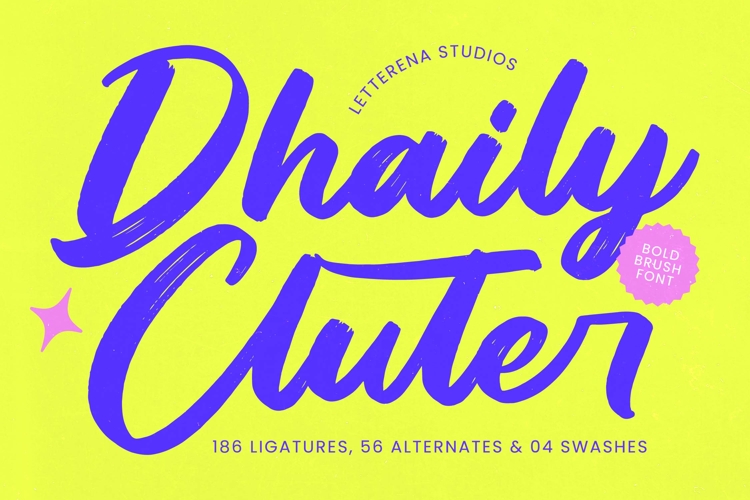
Dhaily Cluter Bold Brush Font
Dhaily Cluter - Bold Brush Font , from Letterena, is a Luxury Script font, suitable for any projects such as: logos, branding projects, homeware designs, product packaging, mugs, quotes, posters, shopping bags, t-shirts, book covers, name card, invitation cards, greeting cards, label, photography, watermark, special events, and all your other luxury and beautiful projects that need a Luxury Script taste.
186 Ligature 56 Alternate & 4 Swashes